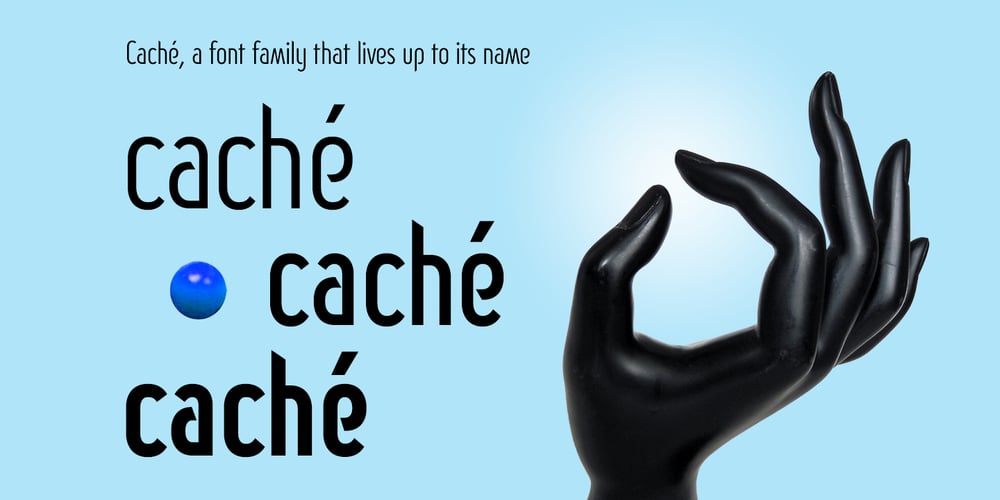
Caché Font Family was designed by James Marsh and published by ArtyType. Caché contains 3 styles and family package options. Caché is a stylish, condensed sans serif font family in 3 versatile weights (Light, Medium & Bold) with an extended Latin character set. The typeface features economical letterforms with distinctively sheared terminals and occasional stencil characteristics. Designed as a practical all-rounder, it really does live up to its name, providing legibility along with added panache to any heading or copy. In practice, its surprisingly adaptable to most projects; and as usual with ‘ArtyType’ fonts, there are several alternate characters available via the glyph palette, providing that extra dimension when personalising your design projects.